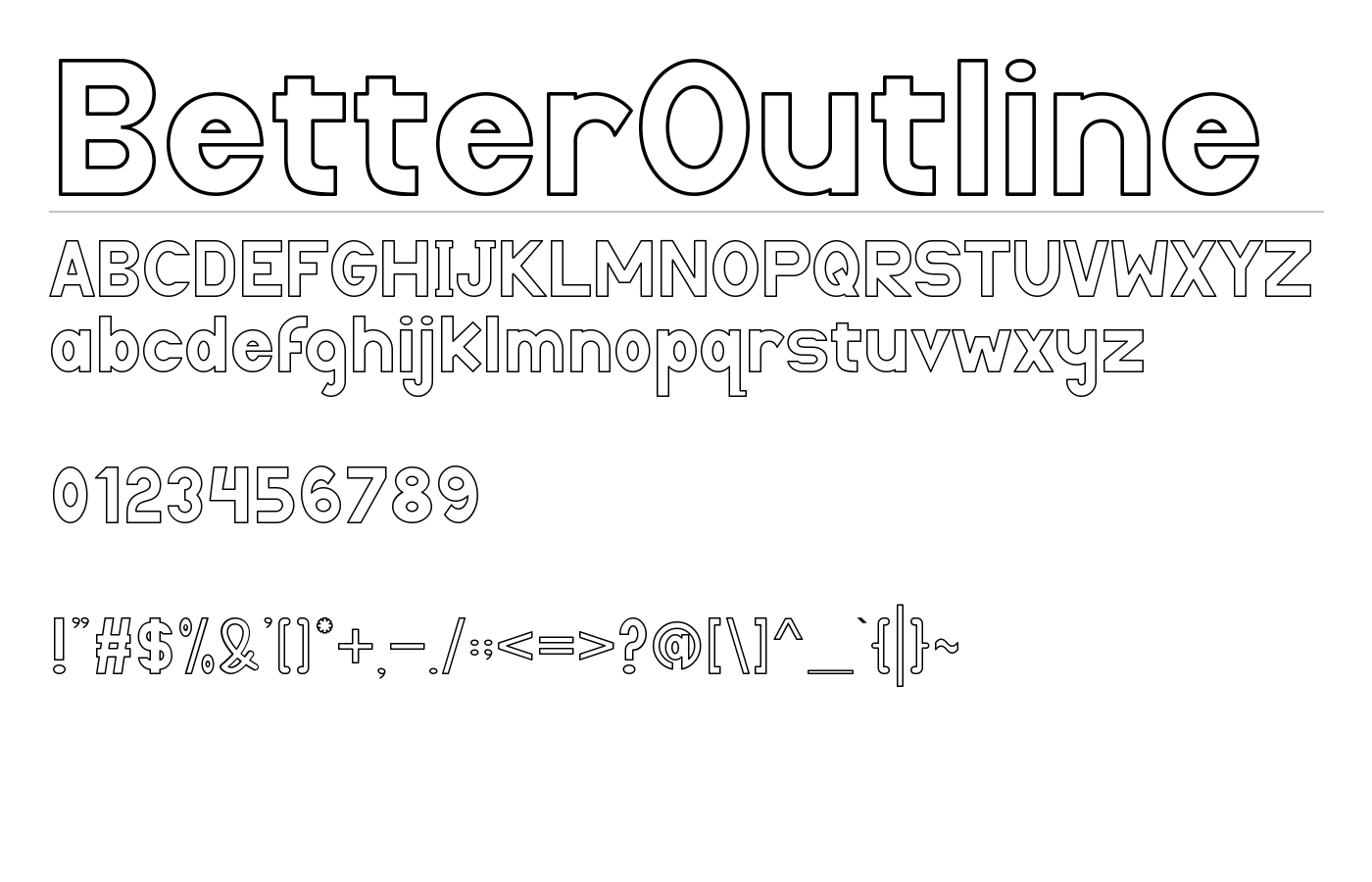
BetterOutline is a clean and modern sans serif outline font with even stroke widths and a geometric feel. Its clear, open letterforms and medium x-height make it highly legible and versatile, ideal for bold headlines, logos, and creative display uses where a stylish, contemporary look is desired. This font’s unique outlined style brings a fresh, playful vibe to designs, perfect for brands seeking a modern yet approachable personality.
BetterOutline Font
About BetterOutline Font